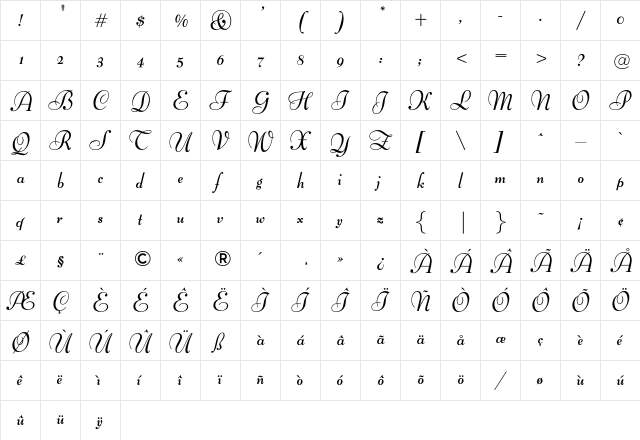
Design Context for BernhardOptiBoldCursive Typeface
BernhardOptiBoldCursive brings a calligraphic fluidity to the page — its connecting strokes and expressive curves give it an unmistakably human quality. The heavy weight commands attention and anchors typographic hierarchies.
Font Pairing: Combine BernhardOptiBoldCursive with a simple geometric sans for maximum contrast — the tension between flowing curves and clean structure is a classic typographic pairing.
Pro Tip: Pair BernhardOptiBoldCursive with a clean sans-serif for supporting text. The contrast between fluid script and geometric structure creates an elegant typographic hierarchy.